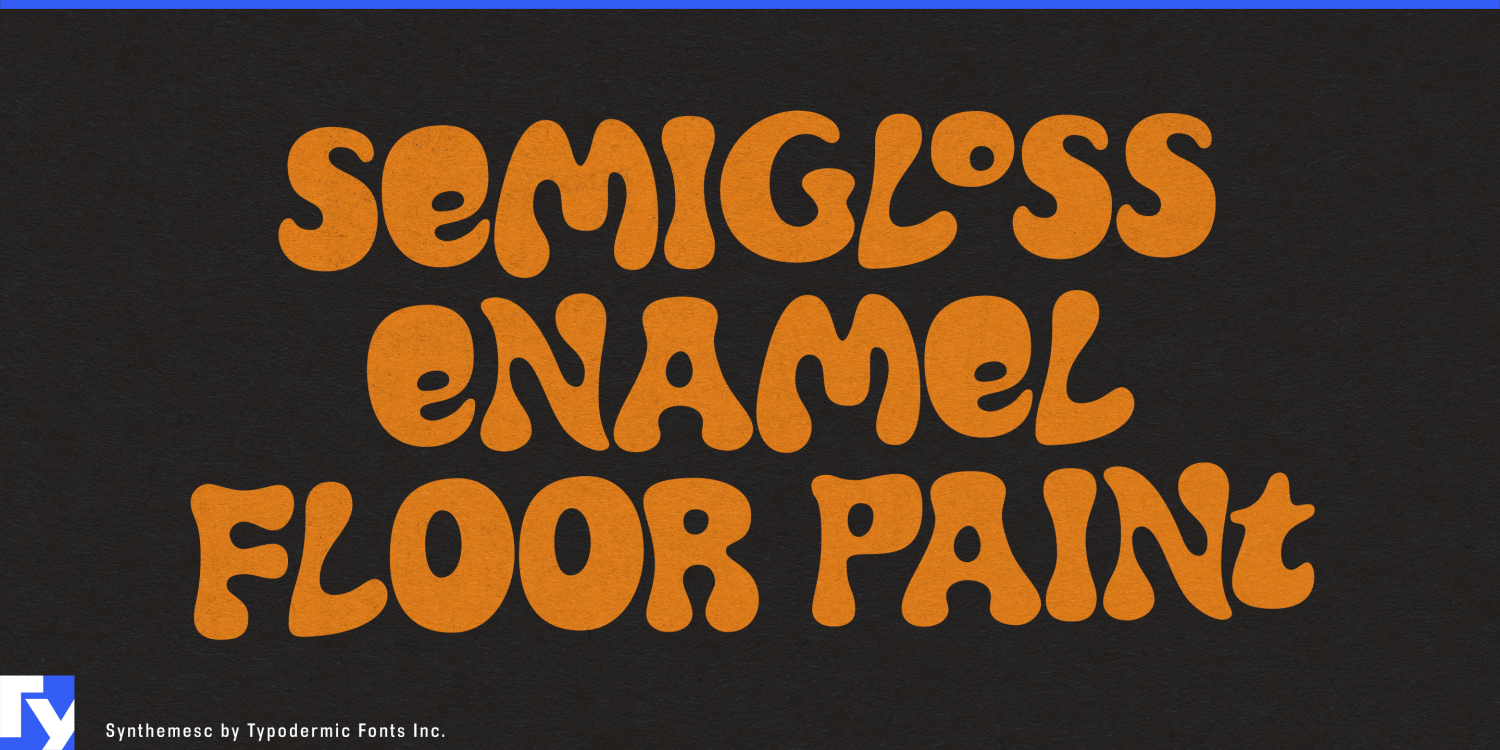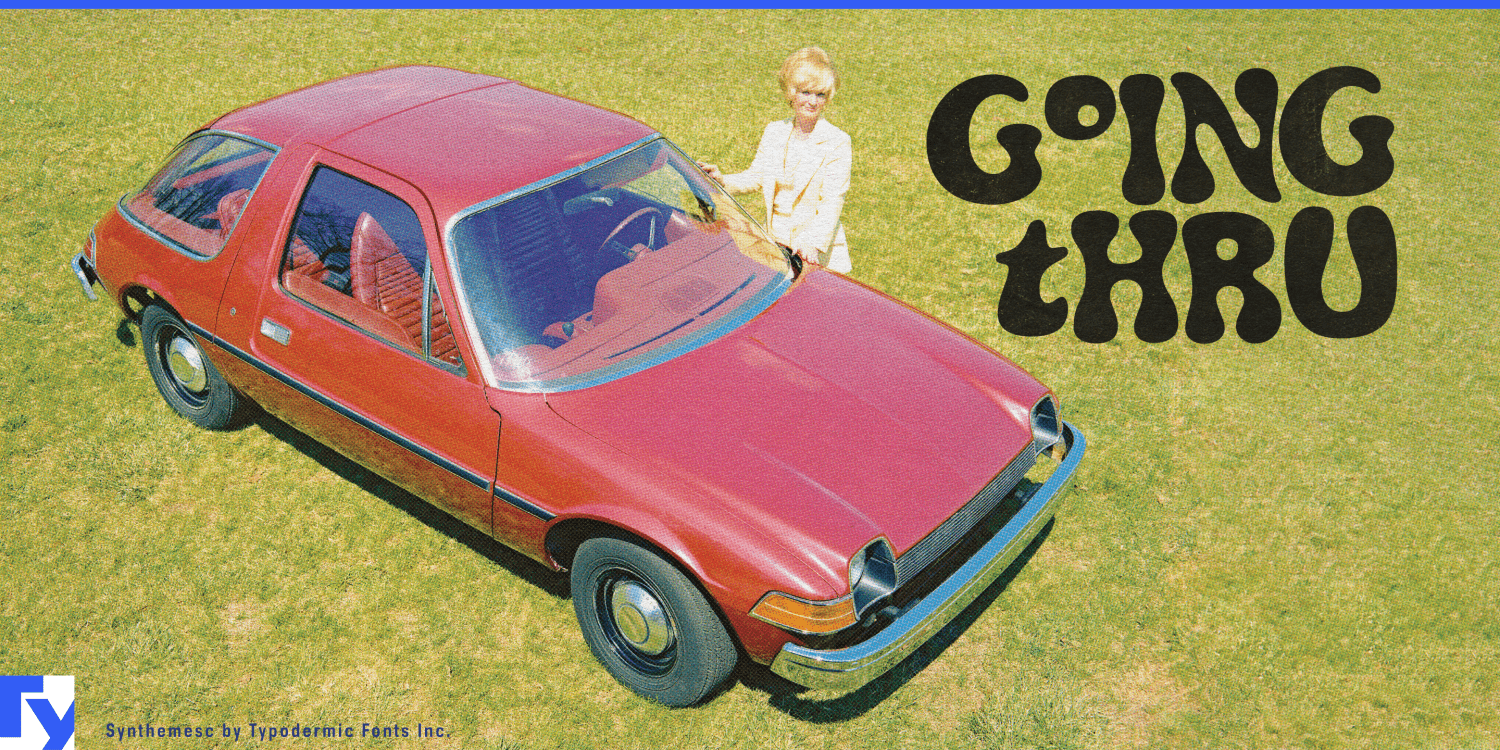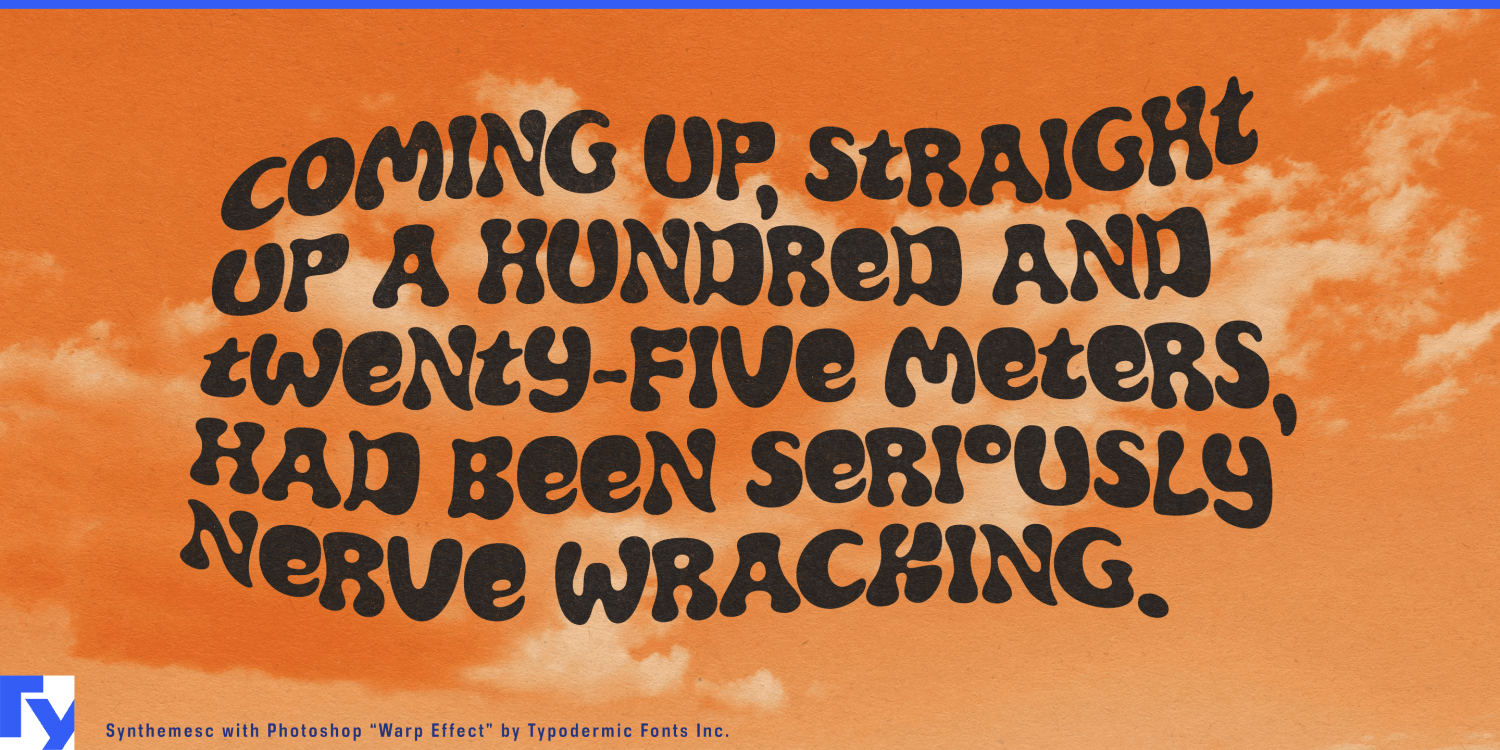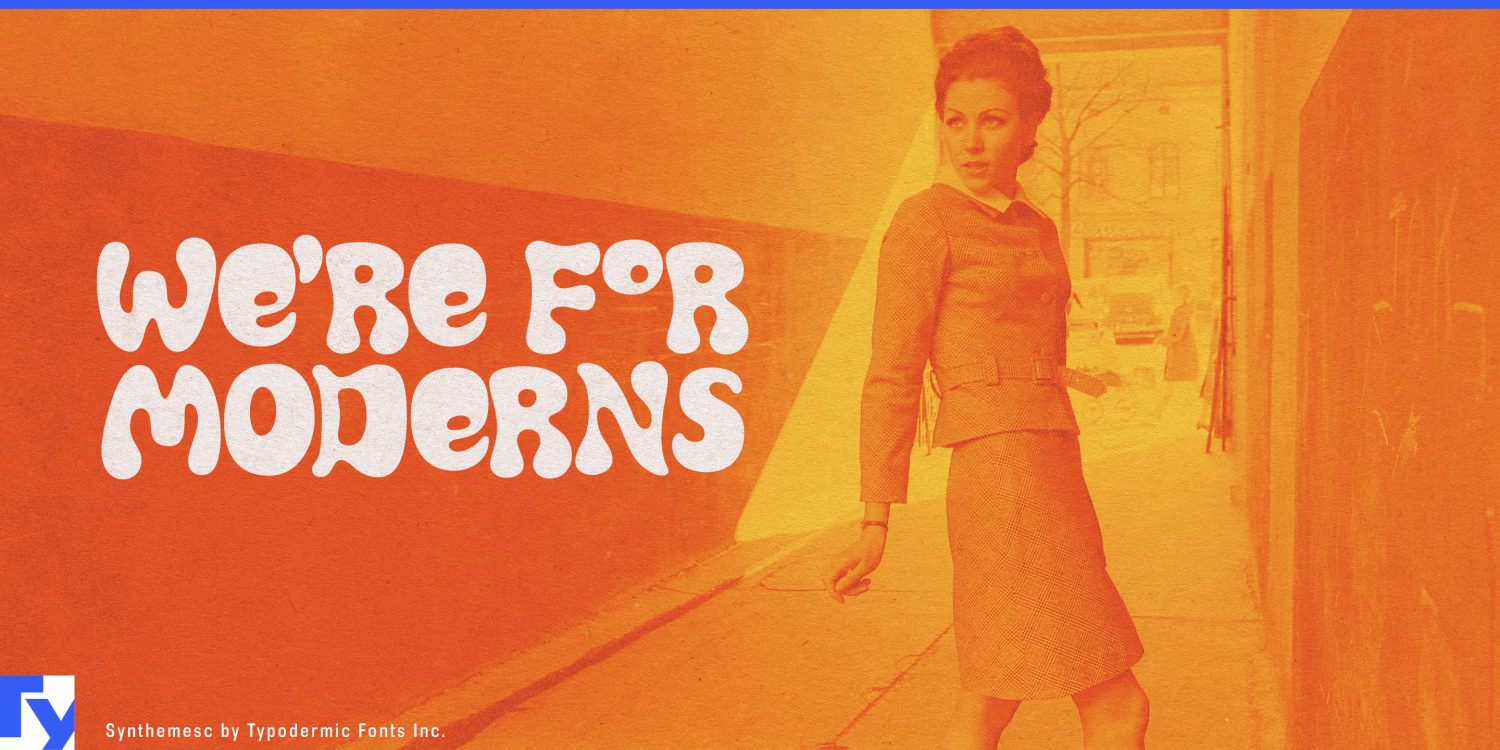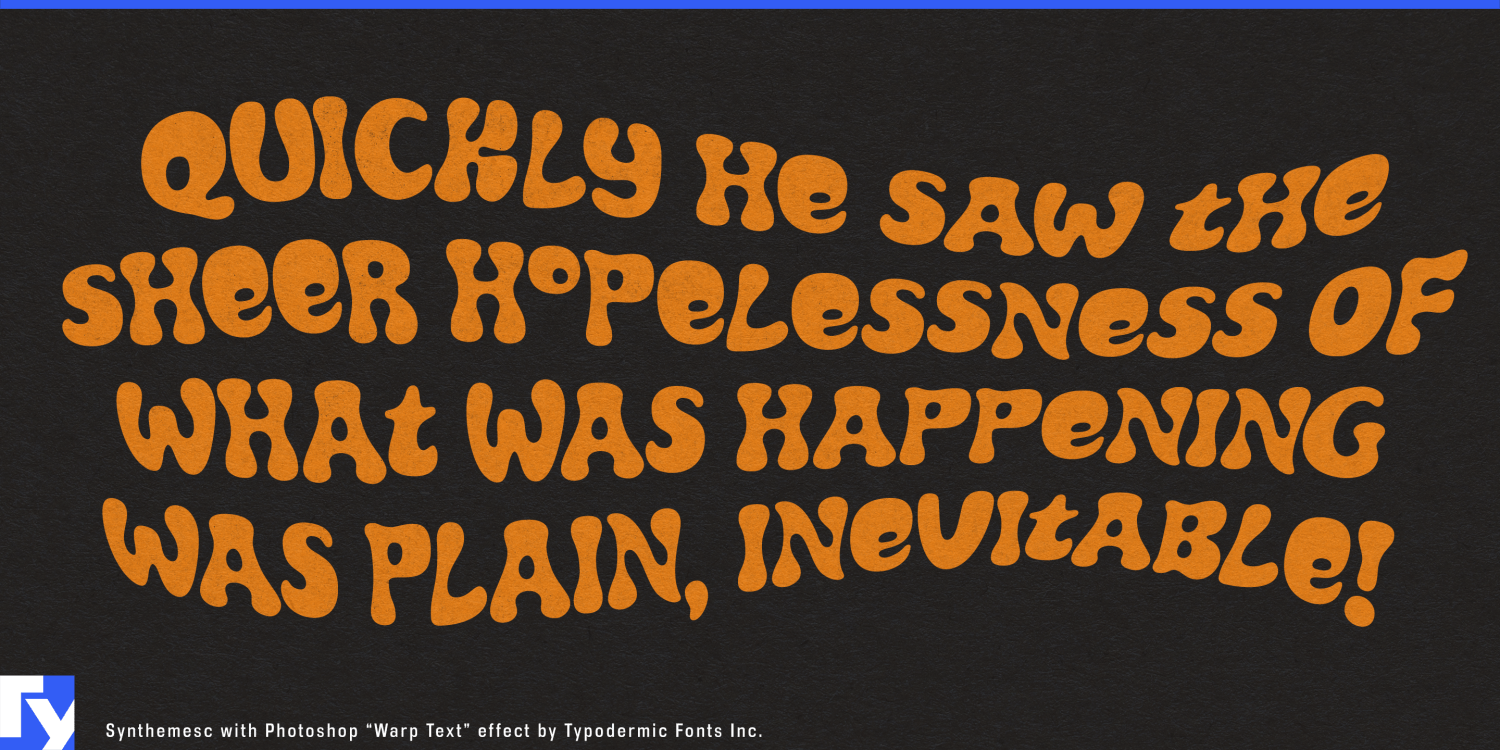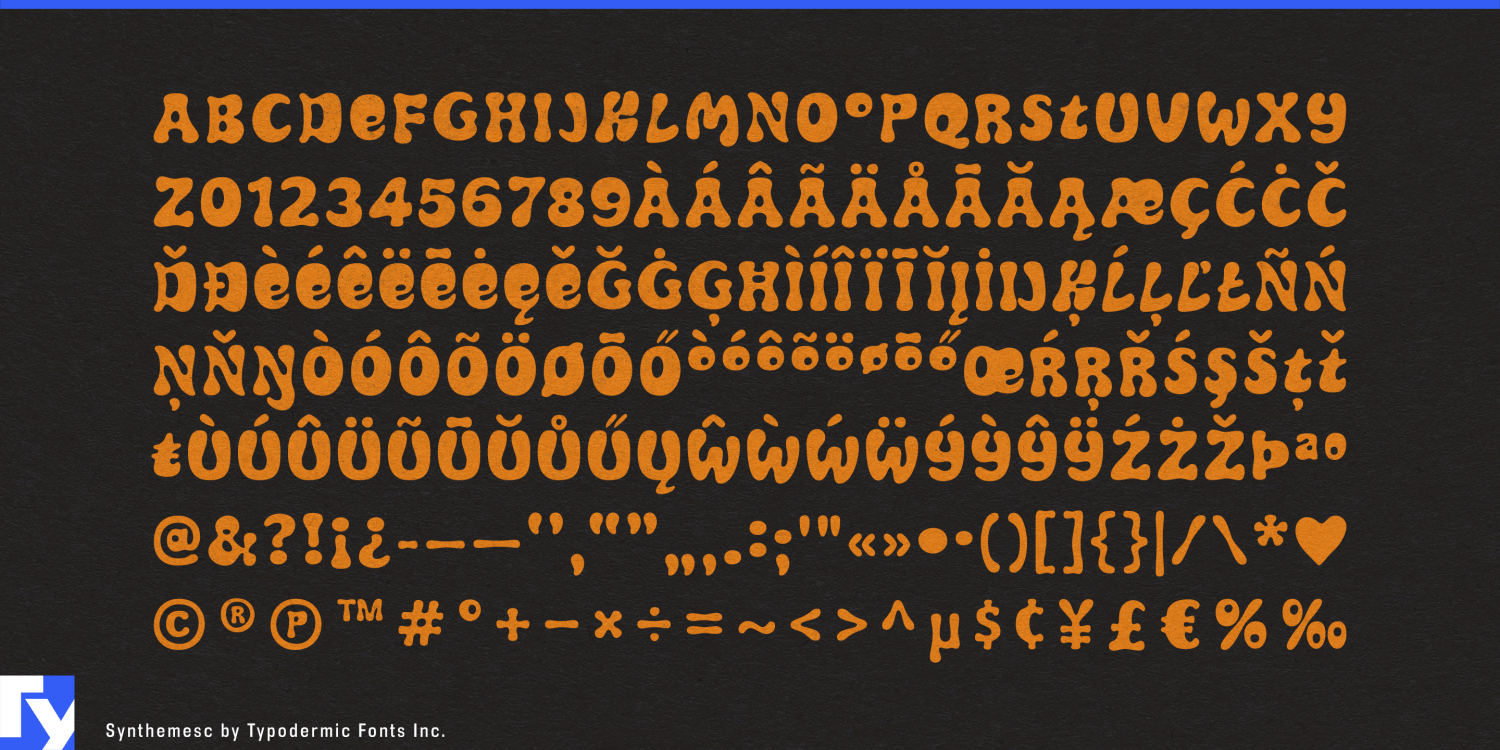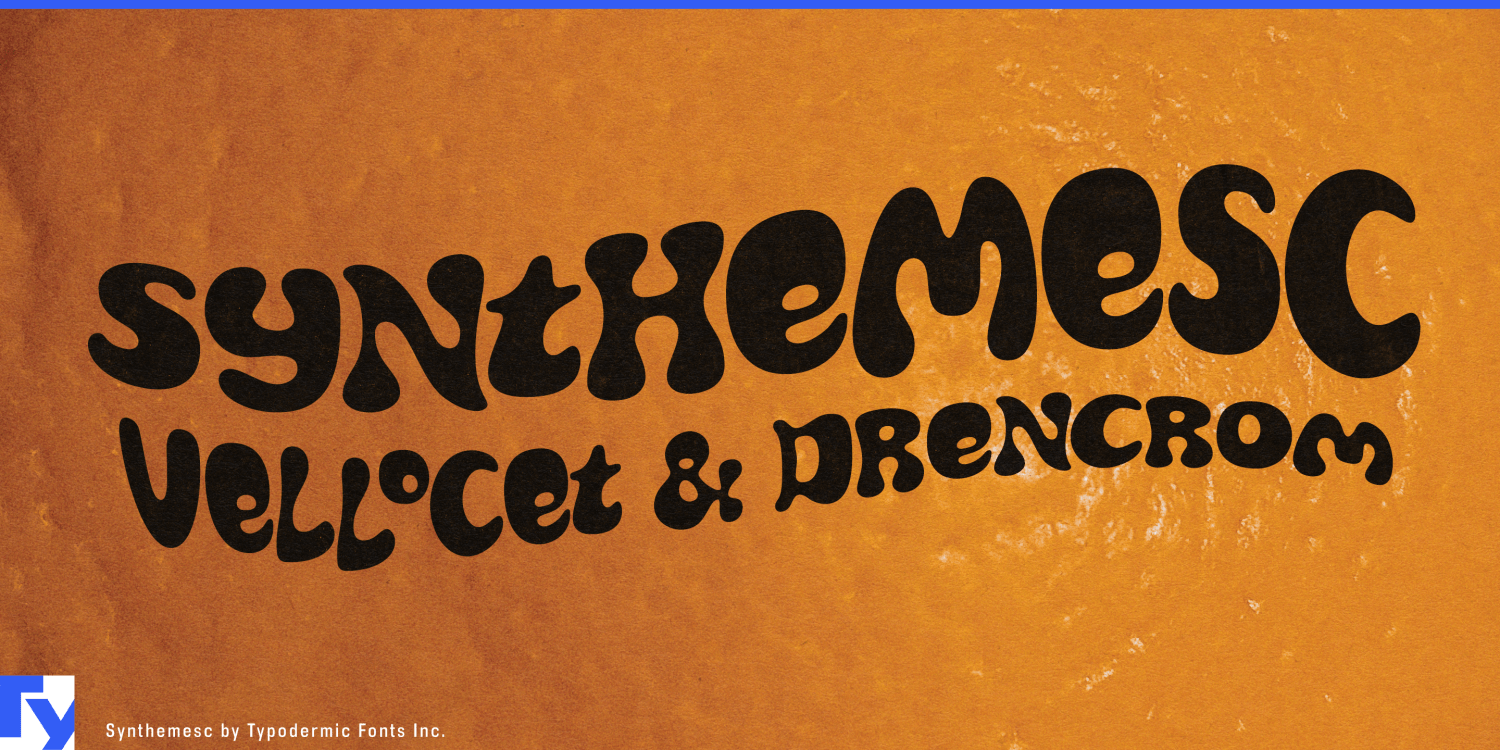
Synthemesc
About Synthemesc
Viddy well, little brother, for here’s a typeface that’ll make your designs real horrorshow. This Clockwork Orange-inspired bit of typographic ultraviolence isn’t your standard gloopy font—it’s a rebellious smeck in the face…